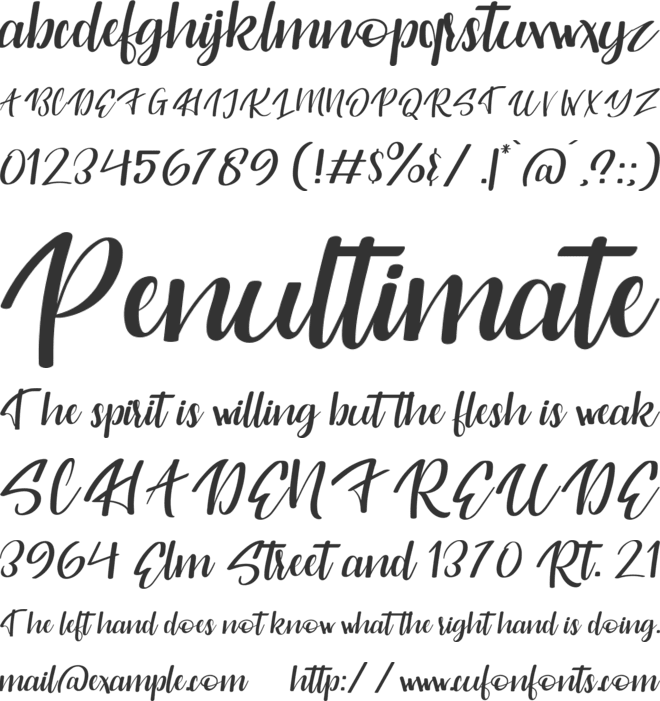
Originality Script Personal Use Font
Say Hello ! to "Originality Script Font" , The Originality is an modern handwritten script font. Very easy to access alternate . which is perfect for flyer,invitations, advertisements, banners, books, business cards, signatures, and others who want a bold script font font type.This demo font is for PERSONAL USE ONLY! But any donation are very appreciated.Paypal account for donation : www.paypal.me/FallenGraphic (http://www.paypal.me/FallenGraphic)Purchase the full version and commercial license at Creative Fabrica (https://www.creativefabrica.com/product/originality-script-font/ref/162831/).